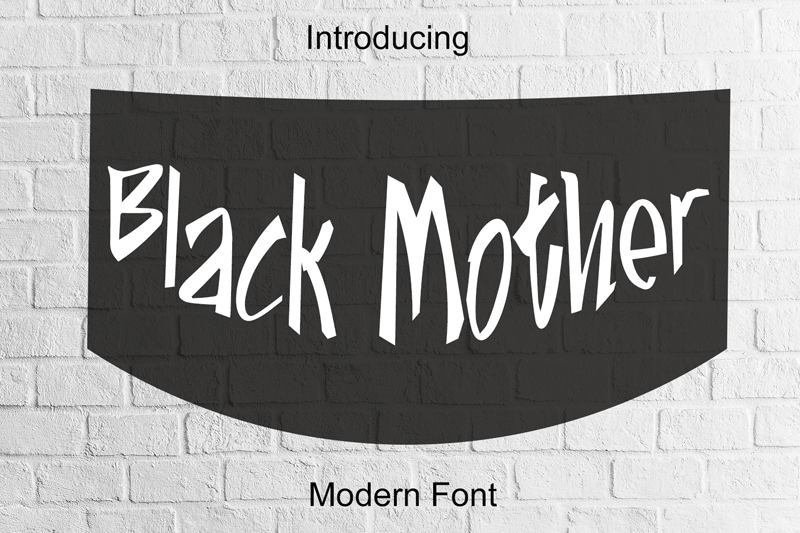
Black Mother
Black mother is a bold and stylish modern font, designed to make your projects stand out. This masterfully designed font is a true must-have.
| Designer Name: | Audi Prasetya |
Designer Name: Audi Prasetya